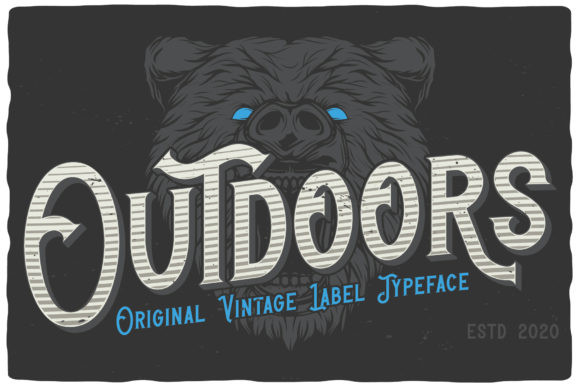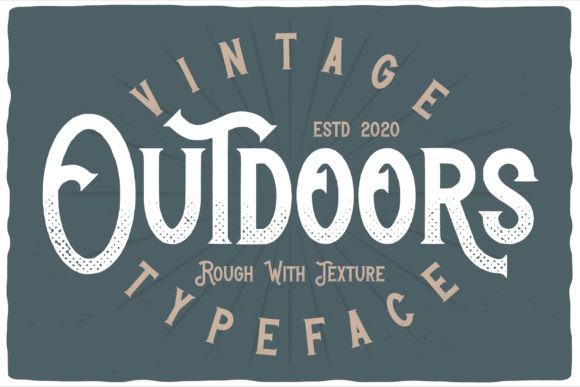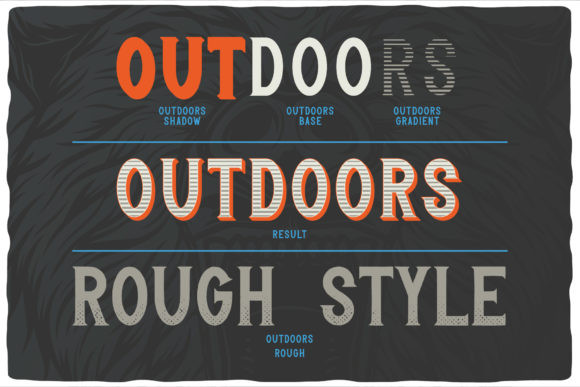
Outdoors Font
Outdoors FontOutdoors is a classic display font. It is suitable for any branding, product packaging, invitation, quote, t-shirt, label, poster, logo that you wish to create.